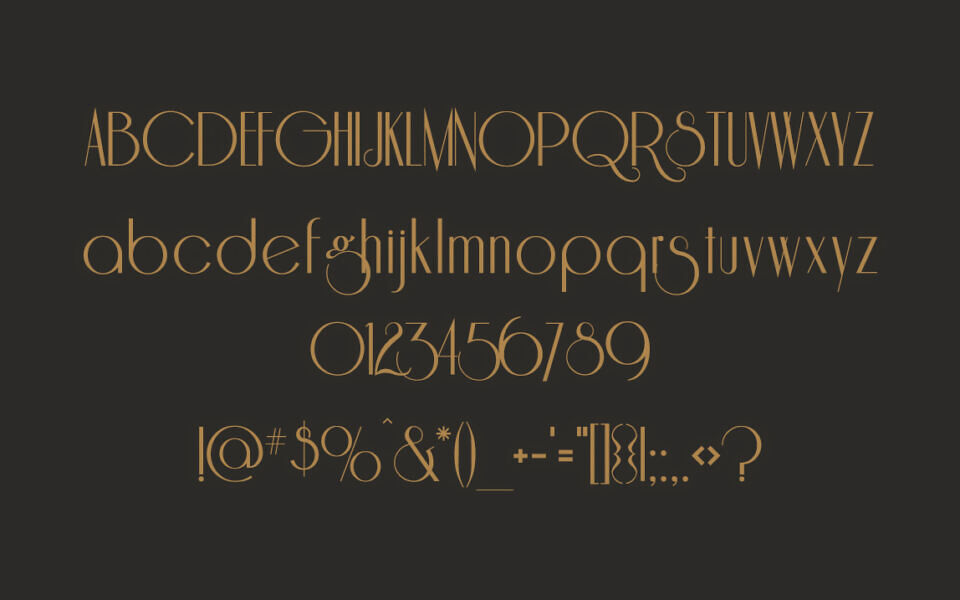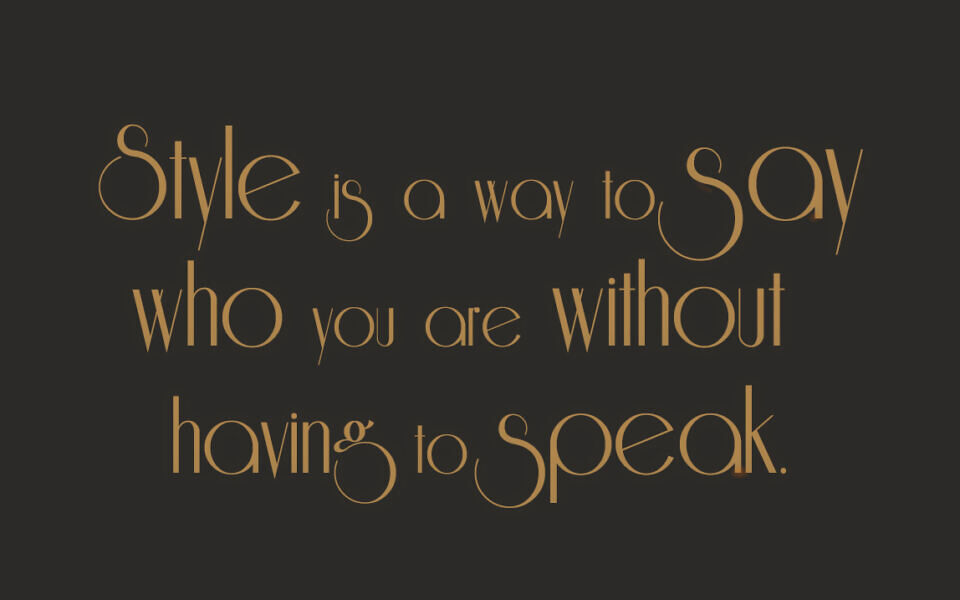
Riesling Font
Riesling Font is a sleek, modern typeface inspired by the elegance of Art Deco design. Its clean lines, geometric shapes, and subtle curves exude sophistication, making it ideal for branding, logos, and editorial projects.
Riesling offers flexibility for both display and headline applications. Its distinctive style balances minimalism and character, ensuring readability while adding a touch of refinement to any design. Perfect for projects seeking a timeless yet contemporary aesthetic.